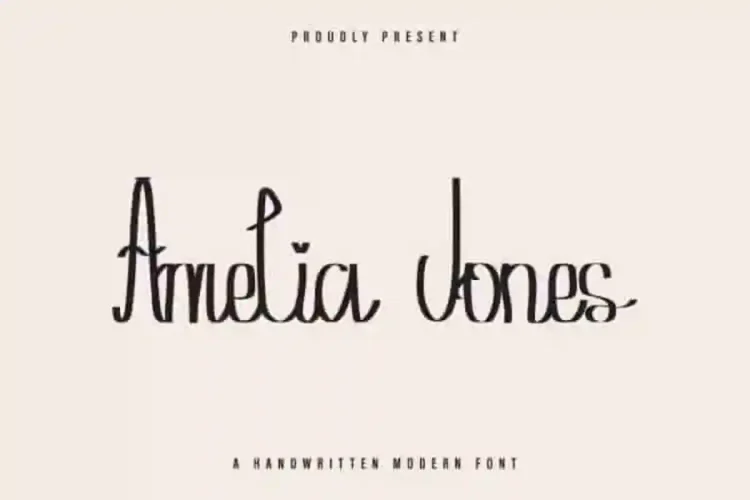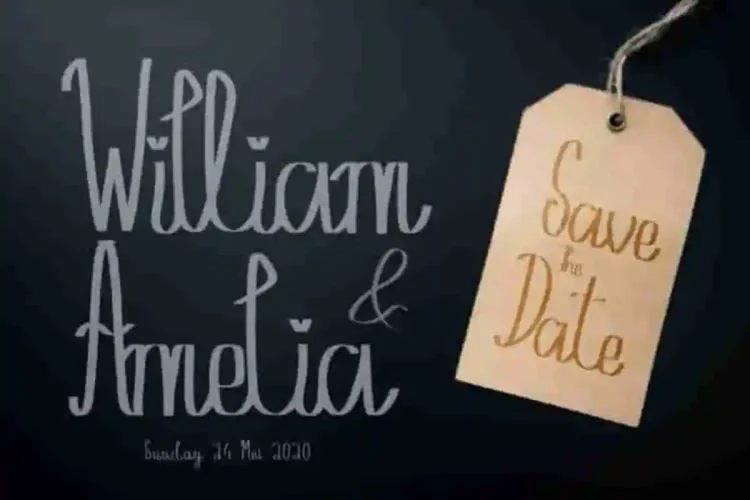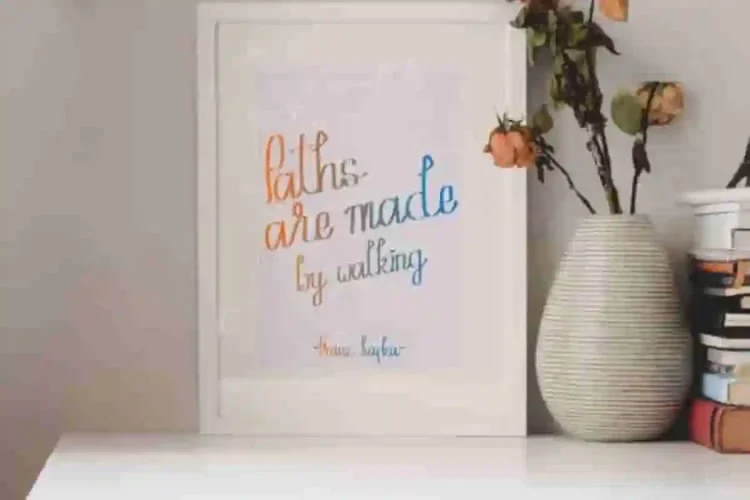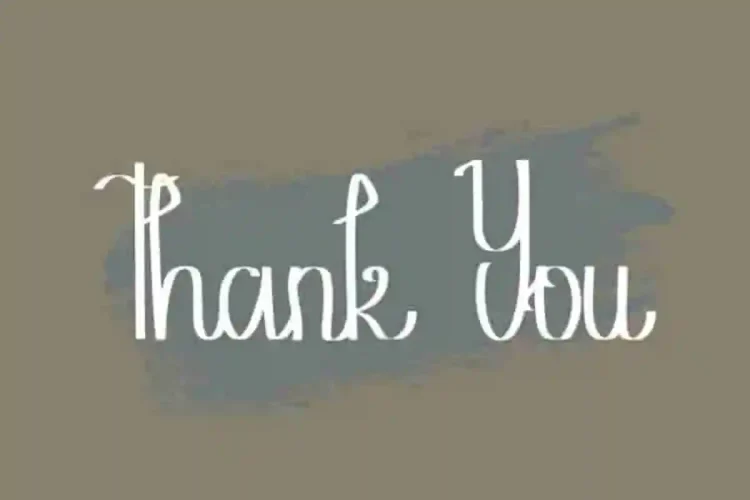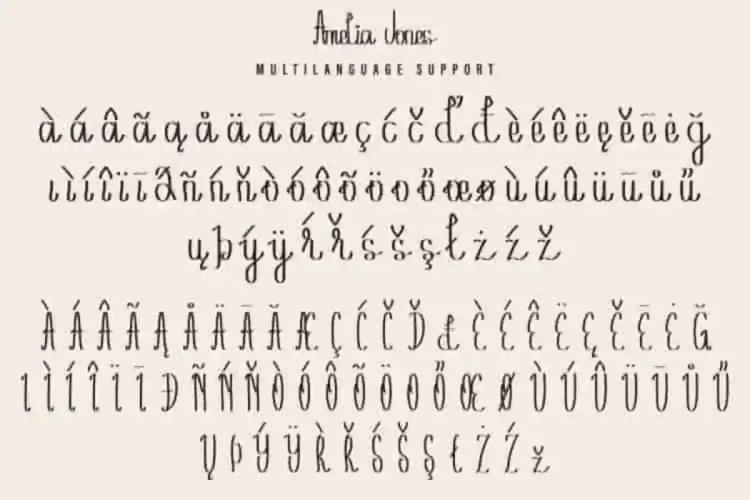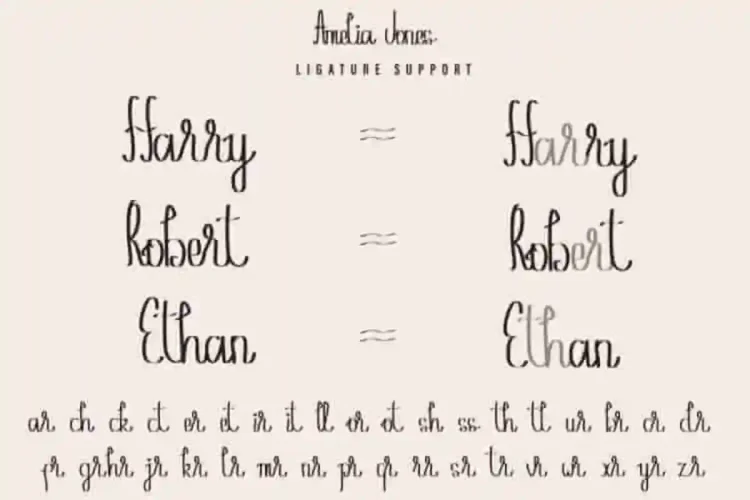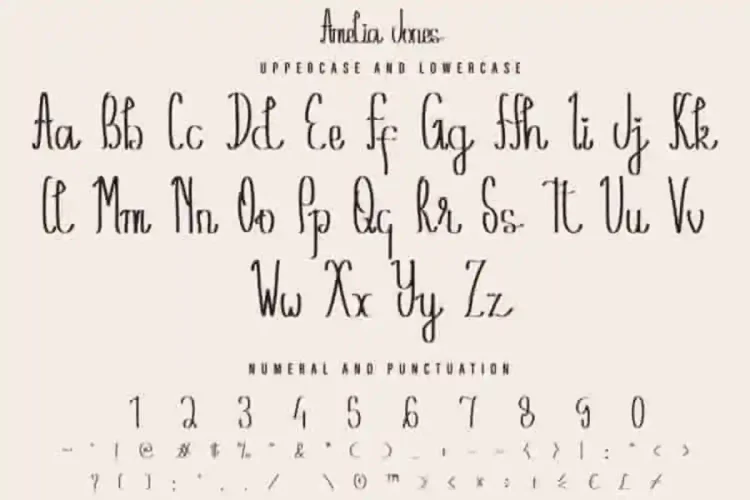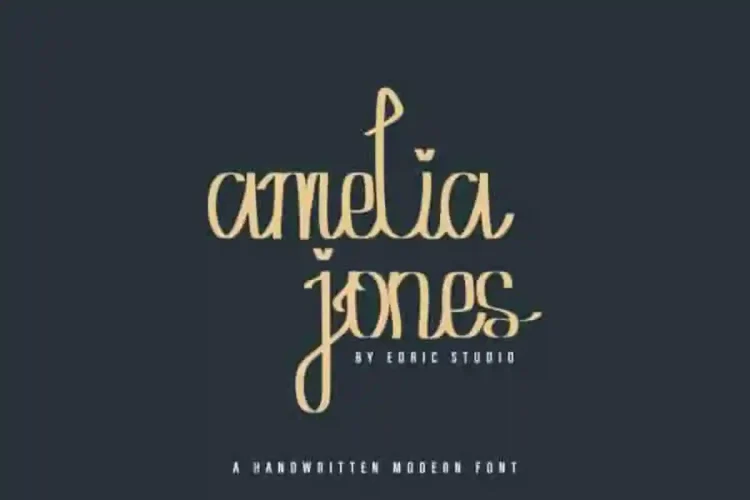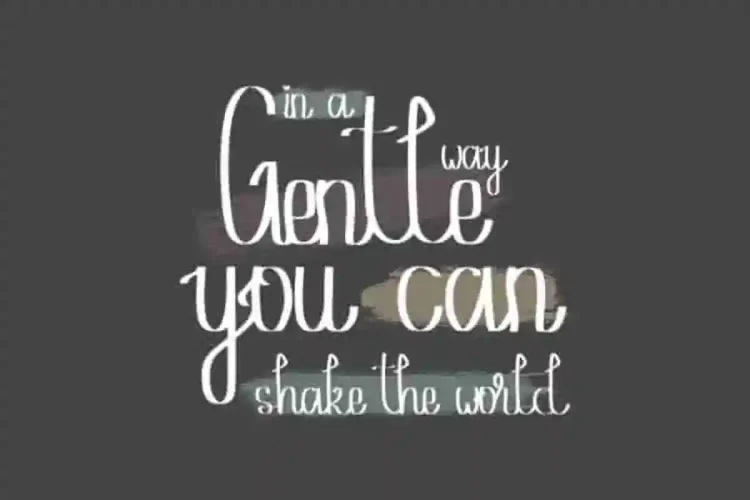
Amelia Jones Handwritten Font
From EDRIC Studio, in 2020,
Please welcome! Our newest font  : Amelia Jones Handwritten Font
This is a fancy display font, handcrafted from our Studio here in Garut and Bandung, Indonesia. The artists/designers of this beautiful tyeface is Widiyanti and Sarah Suci.
Amelia Jones Handwritten Font is an exclusive cute fancy decorative typeface with unique calligraphy style. This font has a stunning characters set, perfectly managed with well spaced and kerning. The theme style of this font will cute, funny, fancy, unique, vintage, stylish, sophisticated and classic hand writing style. You wont find any where else, the font like Amelia Jones Font